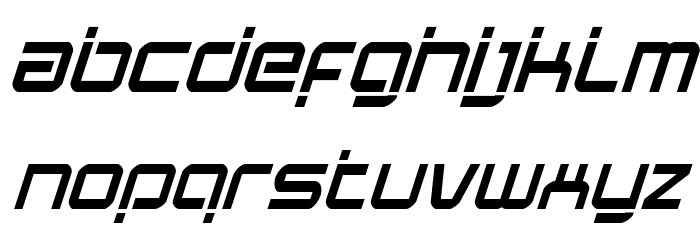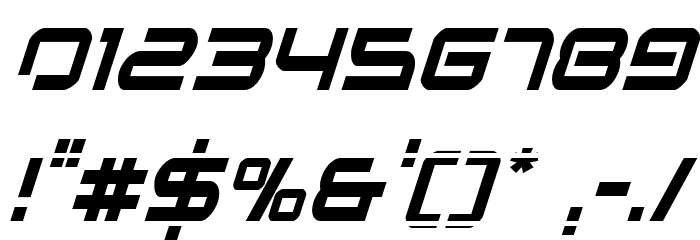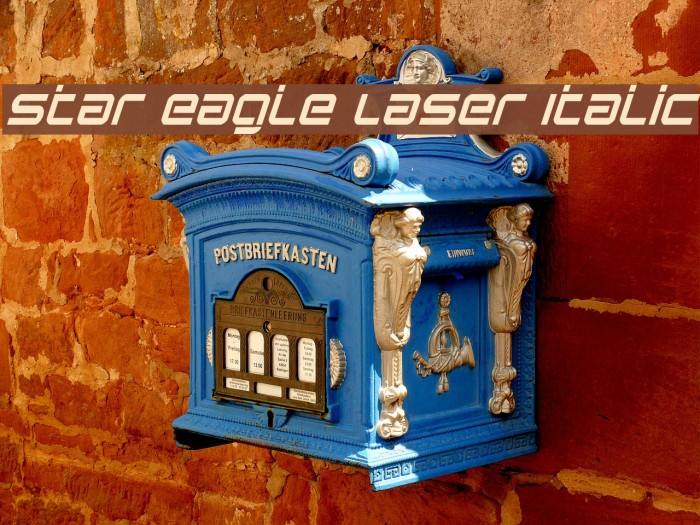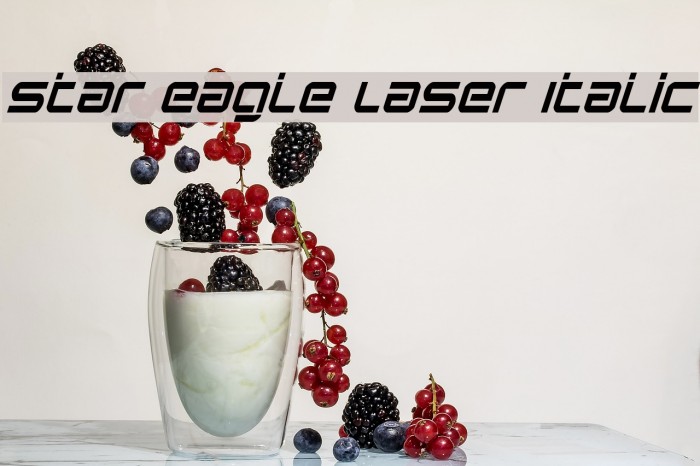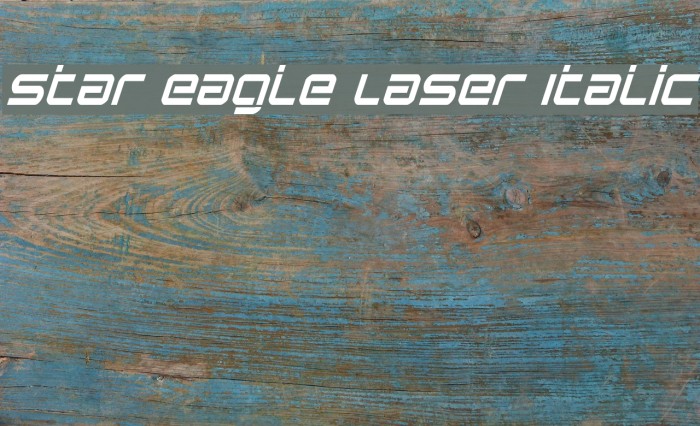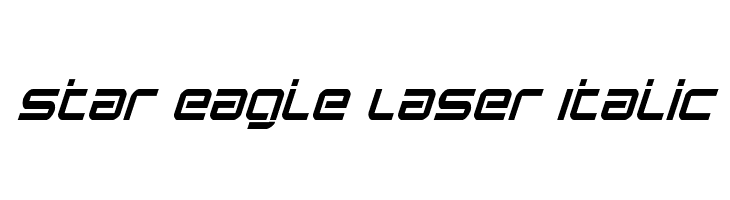
Star Eagle Laser Italic Font
This dynamic and futuristic font features a sleek, angular design with a distinct italic slant, giving it a sense of motion and speed. The characters are bold and geometric, with sharp edges and a consistent stroke width that conveys a modern, high-tech aesthetic. The uppercase and lowercase letters maintain a uniform style, while the numerals and special characters integrate seamlessly into the overall design. The font's unique style makes it ideal for projects that require a cutting-edge, contemporary look.
A sleek, italic, futuristic font with bold, angular characters.
- Proposed Projects: Ideal for sci-fi themed designs, technology branding, video game titles, and modern advertising.